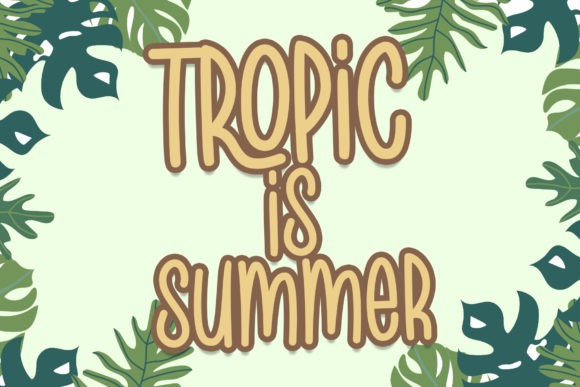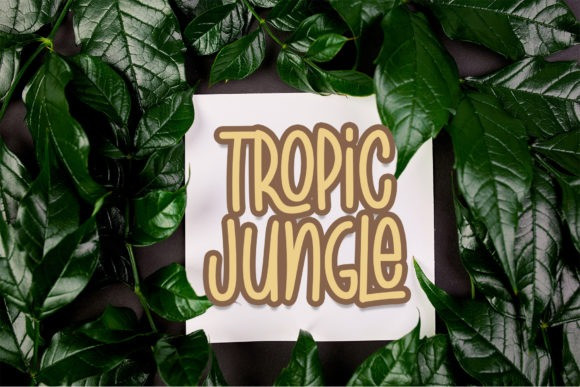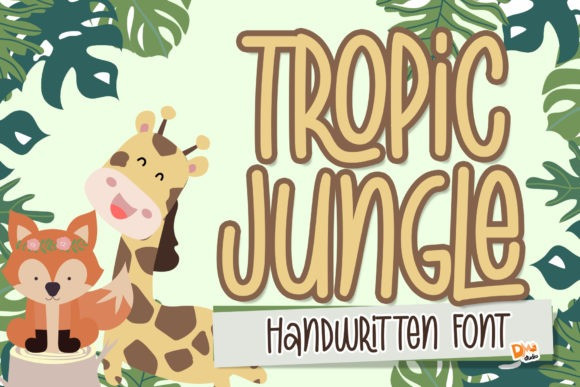
Tropic Jungle Font
Tropic Jungle Font is a cute, quirky and asymmetrical handwritten font, that can be used for all chalkboard quotes or teaching material! Its authentic look will add a personal and realistic feel to your designs.